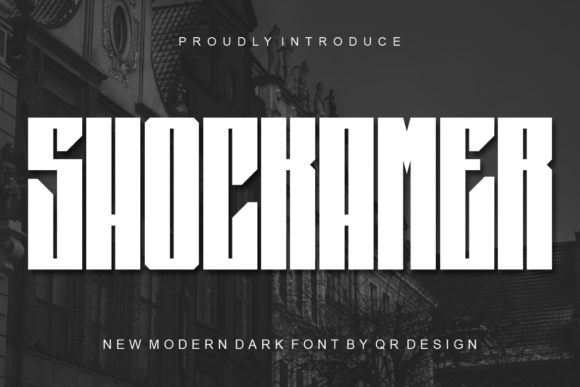
Dive into a world of captivating typography with Shockamer, a sans serif font that oozes attitude and intrigue. This font is not just a collection of letters; it is an expression of your individuality, a reflection of your daring spirit.
Shockamer's bold strokes and sharp angles command attention, making it the perfect choice for headlines, logos, and any design element that demands impact. Its unique letterform, particularly the striking 'S,' adds a touch of mystery, inviting the viewer to explore further.
With Shockamer, ordinary text transforms into a visual masterpiece. Its bold presence adds drama to posters, flyers, and social media designs. Unleash your creativity and watch as words morph into captivating works of art.
This font is more than just a tool; it's a gateway to a world of limitless expression. Whether you're a seasoned designer or just starting, Shockamer empowers you to make a statement. Its versatility extends from branding projects to website designs, inviting you to experiment and leave a lasting impression.
Shockamer is not just a font; it's a statement. It's a declaration of your unique style, a reflection of your bold personality. Embrace its boldness, let your creativity run wild, and captivate audiences with every word.
This font isn't just a collection of characters; it's a journey into the realm of visual allure. Shockamer is the key to unlocking your creative potential, transforming mundane designs into captivating works of art.